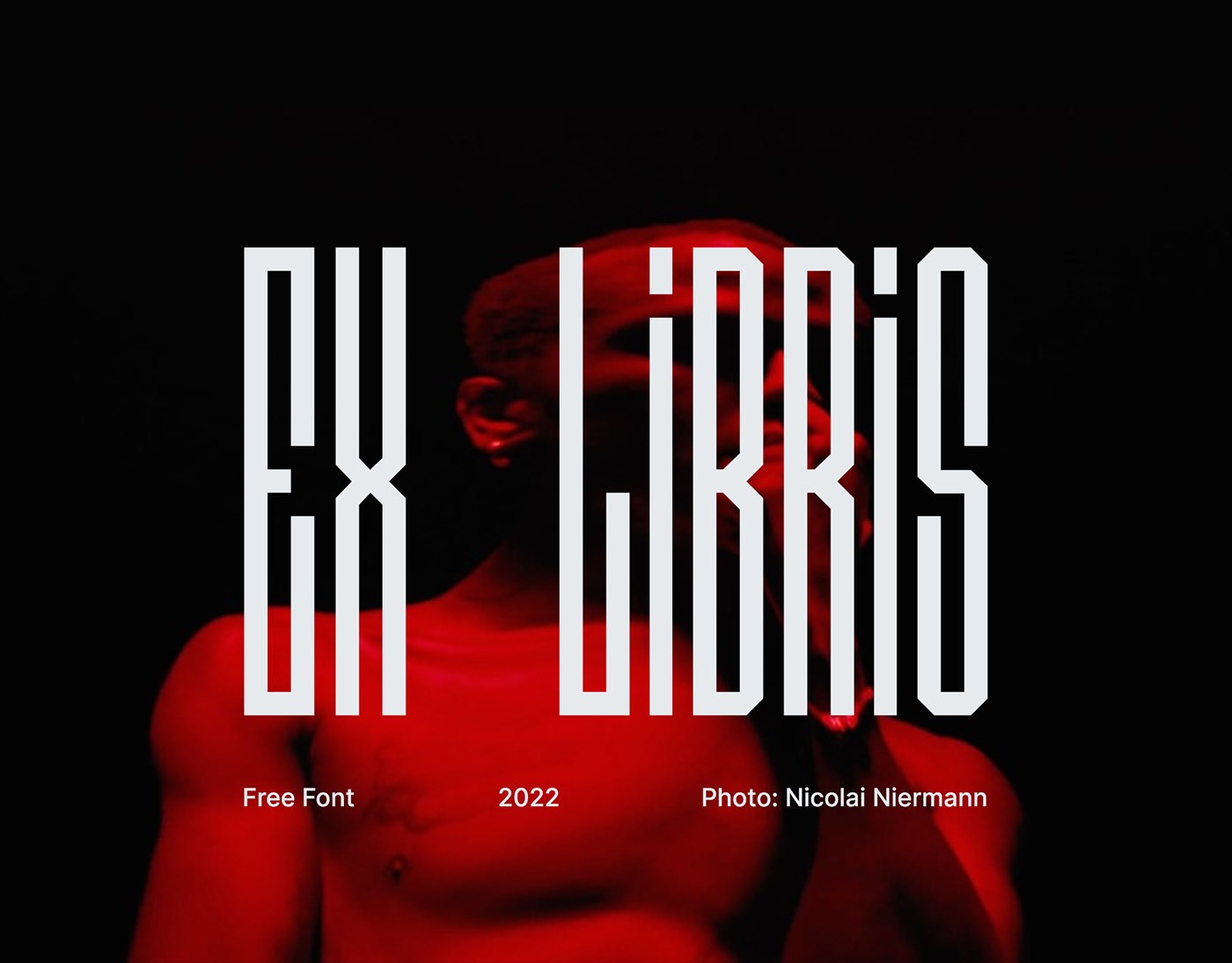
Ex Libris Display Font
This Typeface designed by Pasha Karelin is a minimalist, luxury and gorgeous font that is both classically elegant and inherently modern. Create unique word mark logos, use it as an elegant solution for your next magazine layout, or choose Ex Libris for any graphic design that require a sleek look with an elegant flair.